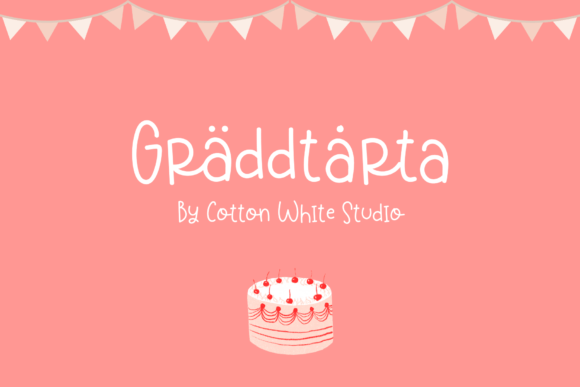
Unleash the magic of Graddtarta, a font family that captures the wonder of childhood and sparks creativity. Its enchanting script, inspired by the innocence of youth, weaves a charming narrative that resonates with every heart. Each letter dances with grace, like a delicate ballerina twirling across the page.
Step into a world of whimsical wonder, where Graddtarta's whimsical curves and playful flourishes bring life to your digital creations. Let your imagination soar as you transform ordinary text into extraordinary expressions of joy and creativity.
Immerse yourself in the warmth of Graddtarta's embracing strokes, meticulously crafted to evoke a sense of nostalgia and charm. Its hand-drawn textures and imperfect edges lend an air of authenticity, inviting you to add a personal touch to your digital designs.
With Graddtarta, you can craft captivating invitations that transport your guests to a realm of pure enchantment. Its playful spirit breathes life into baby announcements, birthday greetings, and party invitations, leaving a lasting impression on every recipient.
Embark on a creative journey as you design digital planners and journals adorned with Graddtarta's elegant script. Its flowing lines and delightful details make every page a canvas for your thoughts, dreams, and aspirations. Explore the endless possibilities of self-expression and let your imagination run wild.
Unlock the power of storytelling with Graddtarta, the ultimate font for baby-related businesses. Its charming personality adds a touch of magic to your brand's identity, creating an emotional connection that resonates with your audience. Whether you're a photographer capturing life's precious moments or a boutique owner crafting unique products, Graddtarta will elevate your visual presence and leave a lasting impression.